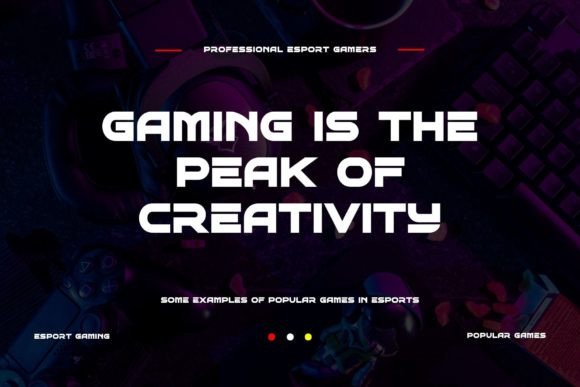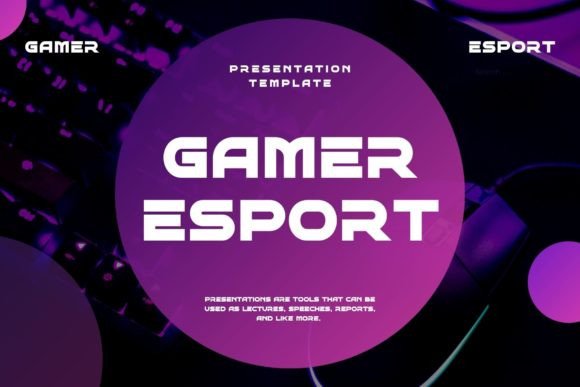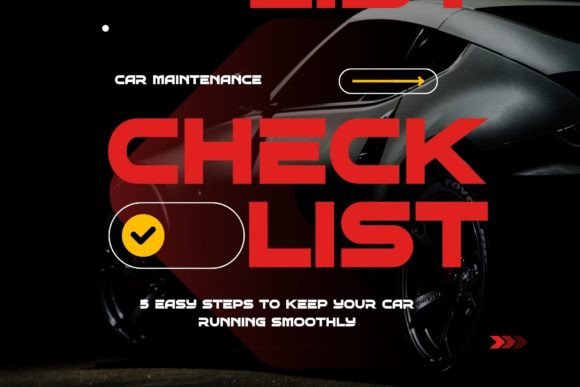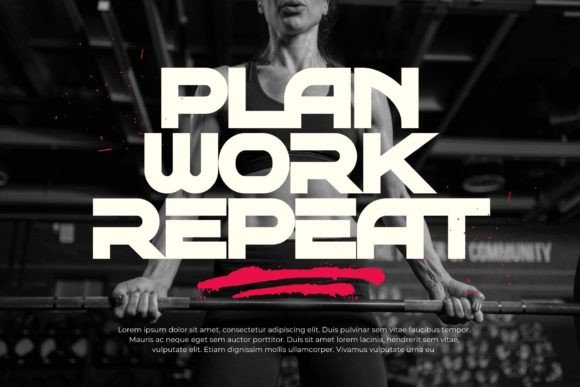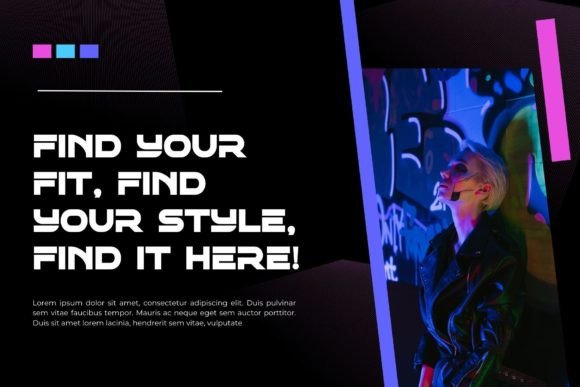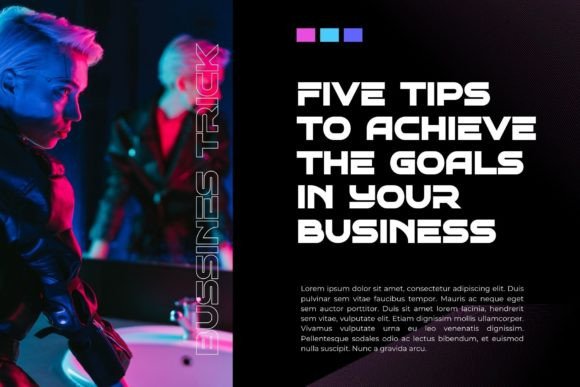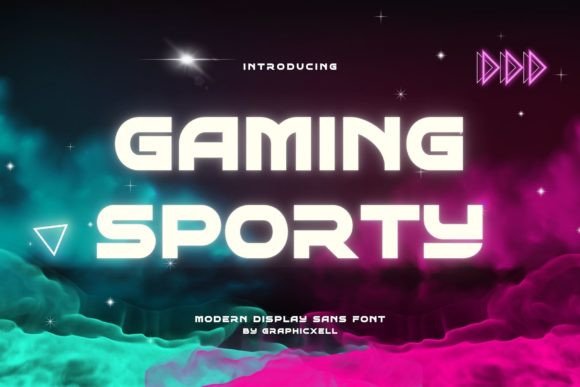
Gaming Sporty Font: Elevate Your Designs with a Dynamic and Energetic Touch
In the world of gaming, style and excitement go hand-in-hand. As a designer or crafter, you’re constantly on the lookout for fonts that can capture the essence of this vibrant industry. That’s where the Gaming Sporty font comes in – a cool and sporty display font that’s specifically designed to convey the energetic and action-packed spirit of gaming.
The Perfect Blend of Style and Functionality
Gaming Sporty is a bold and wide font that demands attention and adds a dynamic touch to any design. Its strong and impactful presence creates a visual impact that resonates with gaming enthusiasts. Whether you’re creating a logo, poster, or headline, this font is perfect for making a statement. Its unique letterforms are carefully crafted to evoke a sense of action and excitement, making it an ideal choice for designers who want to create engaging and memorable designs.
Key Features of Gaming Sporty Font
- Bold and Wide Letterforms: The font’s bold and wide letterforms make it perfect for headlines, titles, and short phrases. The increased letter spacing ensures that each character stands out, creating a clean and easy-to-read design.
- Dynamic and Energetic: The font’s unique design captures the energetic essence of the gaming world. Its dynamic and sporty feel makes it perfect for designs that require a sense of action and excitement.
- Highly Versatile: Gaming Sporty is a highly versatile font that can be used for a wide range of design projects, from gaming logos and posters to headlines and social media graphics.
- Easily Readable: Despite its bold and dynamic design, Gaming Sporty is surprisingly easy to read. The font’s clear and clean letterforms ensure that your message gets across quickly and efficiently.
Why Choose Gaming Sporty Font?
So, why should you choose Gaming Sporty font for your next design project? Here are just a few compelling reasons:
- Stand Out from the Crowd: With Gaming Sporty, you can create designs that stand out from the crowd. Its unique and dynamic design ensures that your work gets noticed.
- Perfect for Gaming Brands: If you’re working with a gaming brand, this font is a perfect choice. Its energetic and sporty design captures the essence of the gaming world, making it an ideal fit for gaming logos, posters, and marketing materials.
- Time-Saving: With Gaming Sporty, you can save time and effort. The font’s bold and dynamic design means you can create stunning designs quickly and efficiently.
Tips for Using Gaming Sporty Font
To get the most out of Gaming Sporty font, here are a few tips to keep in mind:
- Use it for Headlines and Titles: Gaming Sporty is perfect for headlines and titles. Use it to create attention-grabbing designs that draw the reader in.
- Experiment with Colors: Don’t be afraid to experiment with different colors. Gaming Sporty looks great in bold and bright colors, making it perfect for designs that require a pop of color.
- Pair it with Other Fonts: For added visual interest, try pairing Gaming Sporty with other fonts. Its bold design makes it a great choice for pairing with simpler fonts.
In conclusion, Gaming Sporty font is a cool and sporty display font that’s perfect for designers and crafters who want to create dynamic and energetic designs. Its bold and wide letterforms, combined with its highly versatile design, make it an ideal choice for a wide range of design projects. Whether you’re creating a gaming logo, poster, or headline, Gaming Sporty is sure to make a lasting impression.